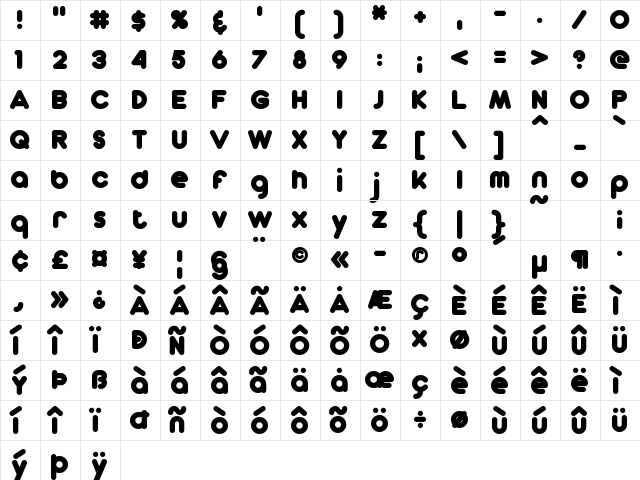
Dunkin Sans Bold
Design Context for Dunkin Sans Typeface
Dunkin Sans is a composed and adaptable typeface that performs quietly and consistently across a wide range of design contexts. The heavy weight commands attention and anchors typographic hierarchies.